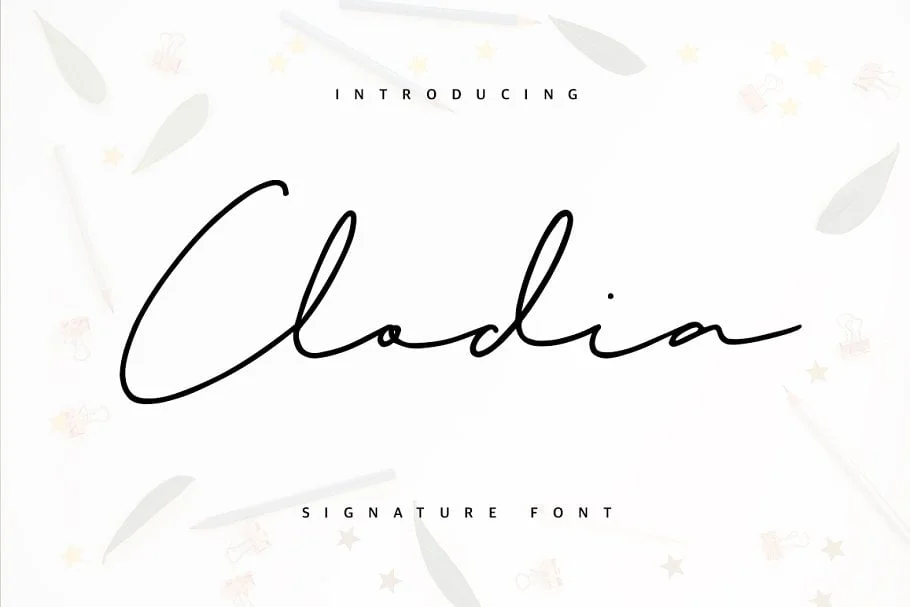
Clodia Font
Clodia Font is perfect for elegant branding projects, fashion magazine layouts, luxury product packaging, boutique logos, sophisticated wedding invitations, high-end cosmetic labels, editorial headlines, premium business cards, upscale restaurant menus, and refined social media content that demands stylish typographic sophistication.
This font is exciting because it masterfully balances modern minimalism with classic elegance, creating letterforms that feel both contemporary and timeless. The refined details and carefully considered proportions demonstrate exceptional craftsmanship, making it an ideal choice for projects that require understated luxury and sophisticated visual communication without overwhelming the design.
The Clodia Font family typically includes uppercase and lowercase characters, numerals, punctuation marks, special symbols, multilingual support, and stylistic alternates that provide designers with flexibility to create polished and professional compositions across various applications.